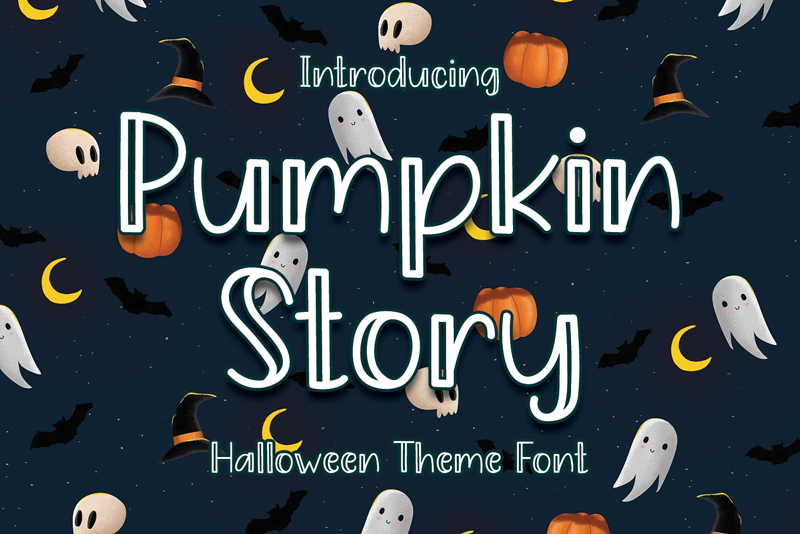
Pumpkin Story is a cool and friendly display font. No matter the topic, this font will be an incredibly asset to your fonts� library, as it has the potential to elevate any creation. Attention : Pumpkin Story handwriting Font is prohibited to use this font for commercial purposes or for profit without the permission of the author/admin, without being known to use this font without permission, will be subject to sanctions 5x the specified price. This font is used only for demos (Demo license) If you want to use this font for commercial use please contact email: erikluluk0@gmail.com or click the link below: https://www.creativefabrica.com/product/pumpkin-story-3/ref/745146/ If you want to see more other fonts, please click:https://www.creativefabrica.com/designer/erik-studio/ref/745146/ Any donations are very appreciated. Paypal account for donation: https://paypal.me/eriksupriyant thanks. |